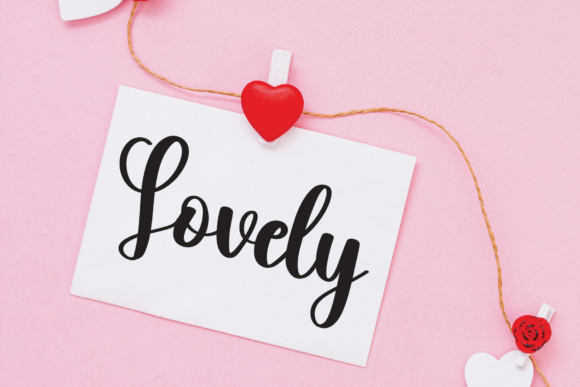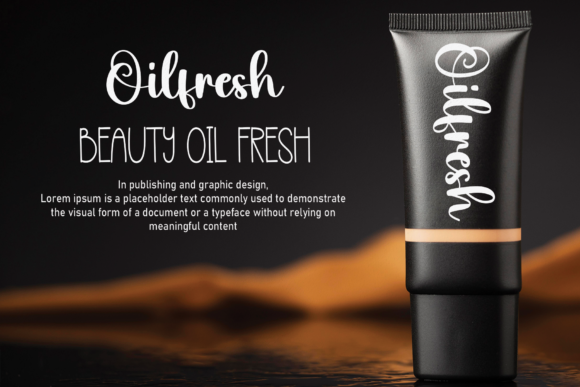
Holiday Birthday Font
db-ku.com - Script & Handwritten -- Holiday Birthday is a delicate and fashionable script font. It is perfect for any branding project such as logos, t-shirt printing, creative products, and more. It will look extraordinary in a variety of contexts.